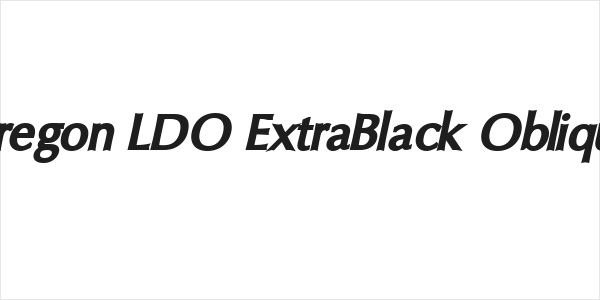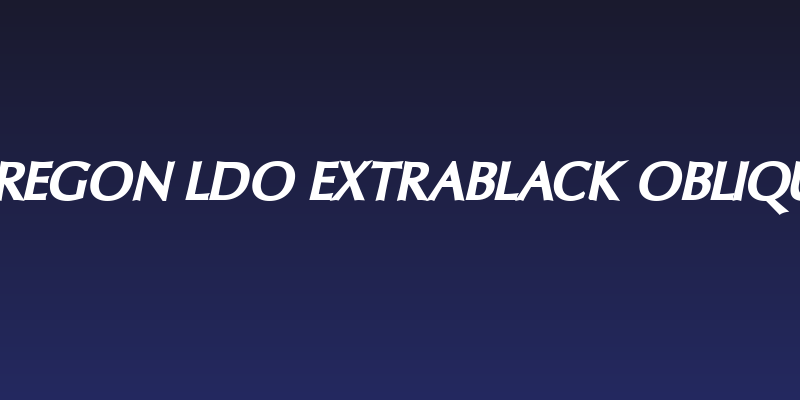
Oregon LDO ExtraBlack Oblique Font
Oregon LDO ExtraBlack Oblique Description
This font exhibits a bold and dynamic presence with its extra black weight and oblique style. The characters are sharply angled, giving a sense of motion and energy. The uppercase letters are strong and commanding, while the lowercase letters maintain a consistent style that complements the overall design. The numerals are clear and bold, ensuring readability. Special characters are designed with the same attention to detail, providing a cohesive look across all glyphs. This font's heavy weight and slanted form make it ideal for impactful designs.
| Proposed Projects | Ideal for headlines, posters, branding, and any design requiring a strong visual impact. |